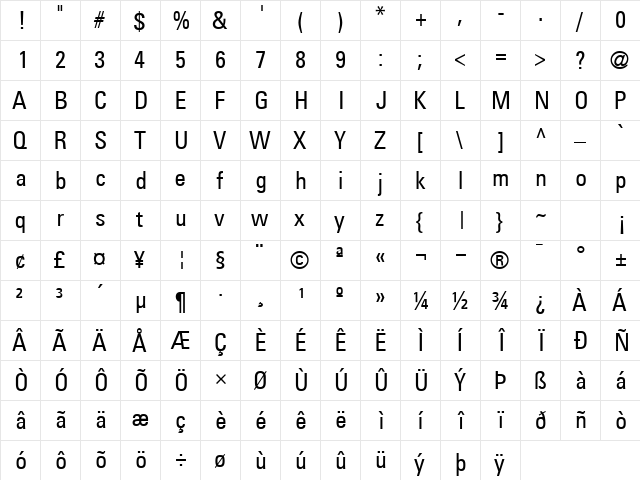
NovaCondSSK Regular
Design Context for NovaCondSSK Typeface
NovaCondSSK offers clean, dependable letterforms without strong stylistic allegiance, making it a practical choice for designers who need flexibility. Its narrow stance lets it pack a punch even in space-constrained designs.